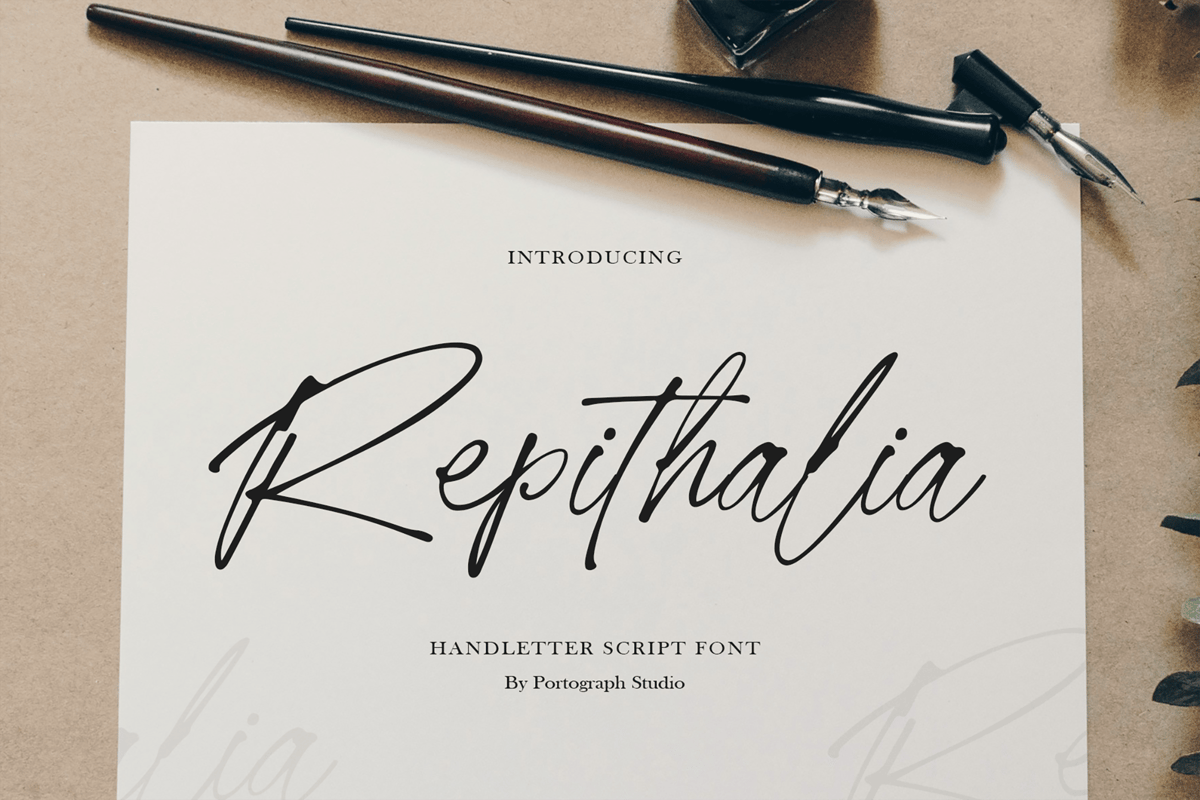
Repithalia – Elegant Handwritten Script Font
Elevate your designs with Repithalia's sophisticated handwritten elegance and natural calligraphy flow.
This stylish script font combines smooth strokes with modern calligraphy character forms, delivering a charming handcrafted aesthetic while maintaining excellent readability across both digital and print applications. The fluid curves and natural flow bring warmth and personality to any typography project.
Perfect for luxury branding, romantic visual concepts, and projects requiring an authentic artistic touch, Repithalia adds timeless handwritten sophistication that feels both genuine and refined. Its versatility makes it ideal for creating memorable brand identities and elegant design solutions.